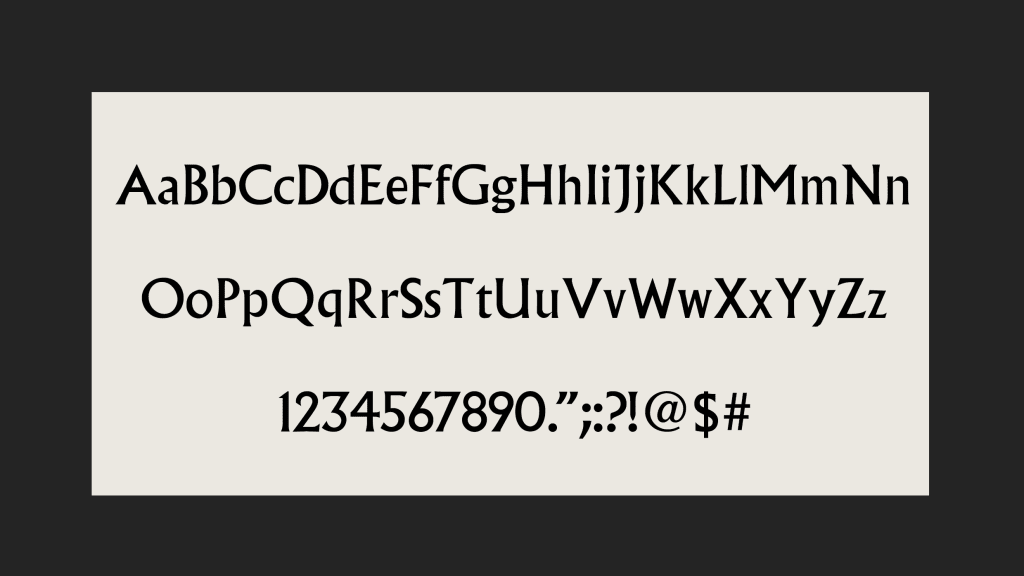
Some directors are known for their typographic flair—from the ultrawide tracking of Christopher Nolan’s film titles to Quentin Tarantino’s genre vernacular font and lettering selections.
But last week, as we reported on Sean Baker’s extensive use of Aguafina Script across his past four movies, we wondered: How many other directors have firmly embraced a single, singular typeface—and what does that typeface say about their films?
The first part is easier to answer.
“It is rare,” says title designer and Art of the Title editor-in-chief Lola Landekic. “It’s a very interesting choice. As a creator, you have to sort of commit to a specific aesthetic. And I think you also have to know yourself very well and know that there’s a throughline in all your work.”
That’s clearly the case when it comes to Baker and the directors below.
Sean Baker—Aguafina Script
Perhaps the most audacious thing about Baker’s use of Aguafina in the Best-Picture-winning Anora and his other films is the sheer amount of personality it contains. It is anything but a benign catchall face—but it is also a tonal fit that enhances the characters and themes at the heart of his most recent movies.
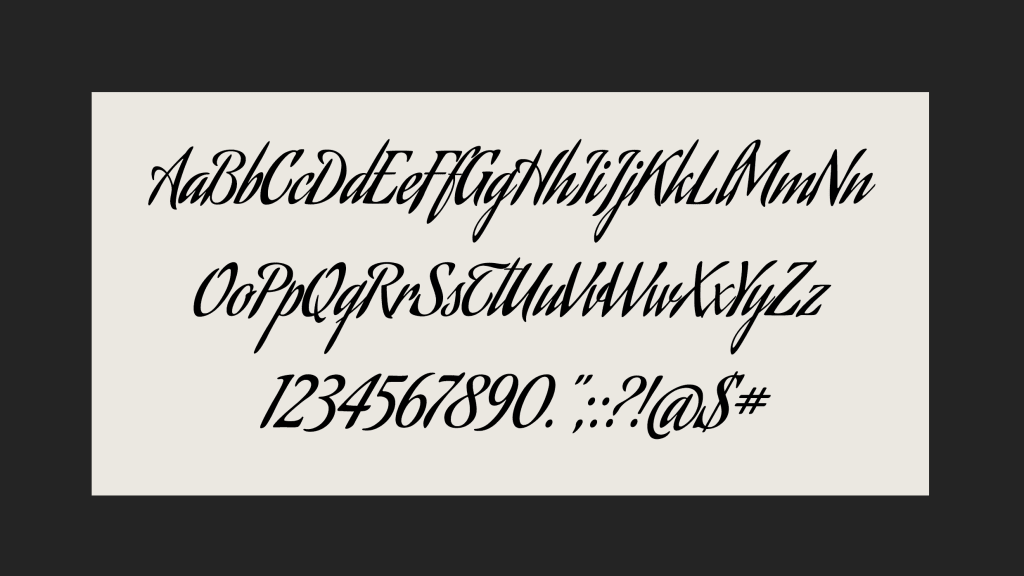
Landekic likens titles and title sequences to seasonings that can make or break a dish. While Baker’s work often deals with poverty and marginalized characters, the energetic Aguafina elevates everything all at once, providing a contrast to the common visual iconography around such subjects. It has perhaps been a key to his films since Tangerine—and one that has carried over into marketing materials and more (a rare luxury when, for example, posters for the Men in Black films feature a bulky sans serif rather than Pablo Ferro’s far more interesting signature lettering that appears in the actual movies).
“It can be a difficult thing to achieve as a filmmaker, that kind of consistency of aesthetic,” Landekic says. “I admire anyone that can get that through the door because it’s hard these days where everything is created so piecemeal—often the distributor controls the promotional materials, and the filmmaker has very little say into how that gets to look.”
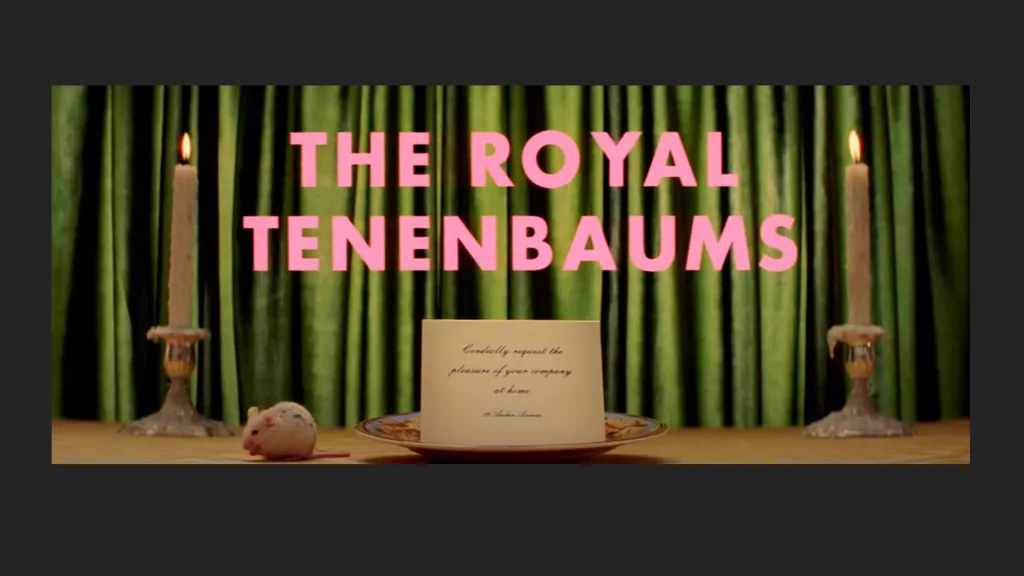
Wes Anderson—Futura
A lot has been written about Wes Anderson’s thoughtful and intentional approach to type and lettering—but the face that made him famous was Futura, which branded the first half of his filmography (so much so that many considered it an aesthetic betrayal when he sidelined it for Jessica Hische’s title lettering in Moonrise Kingdom.) In Anderson’s masterpiece The Royal Tenenbaums, Futura was essentially a character in its own right, appearing not just in titles, but on buses, books and myriad places beyond.
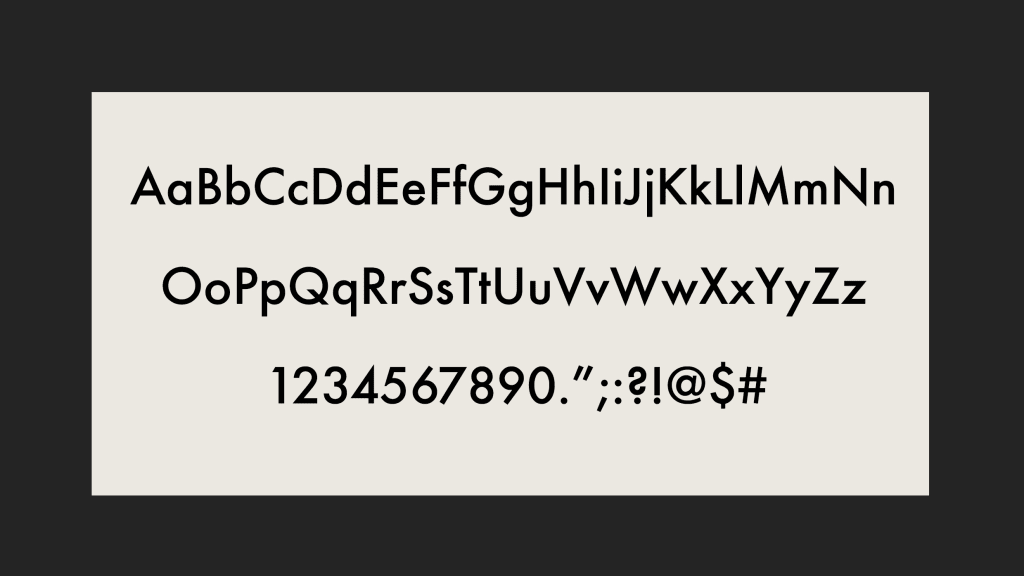
“It harkens back to the French New Wave and sort of how Godard used titles,” Landekic says. “The thing about Futura is that it’s very unadorned. It feels almost like you could overlook it. But the way that Wes Anderson uses it gives it a very clean stamp. . . . What it really does is it makes everything feel very arranged and curated. And for a filmmaker like Wes Anderson, that is a lot of the point.”
One further Futura aside: It’s a common misnomer that Stanley Kubrick used it widely in his filmography. In reality, he only truly deployed it in Eyes Wide Shut, and it cropped up in promotional materials for other projects—though he did reportedly call it his favorite typeface.
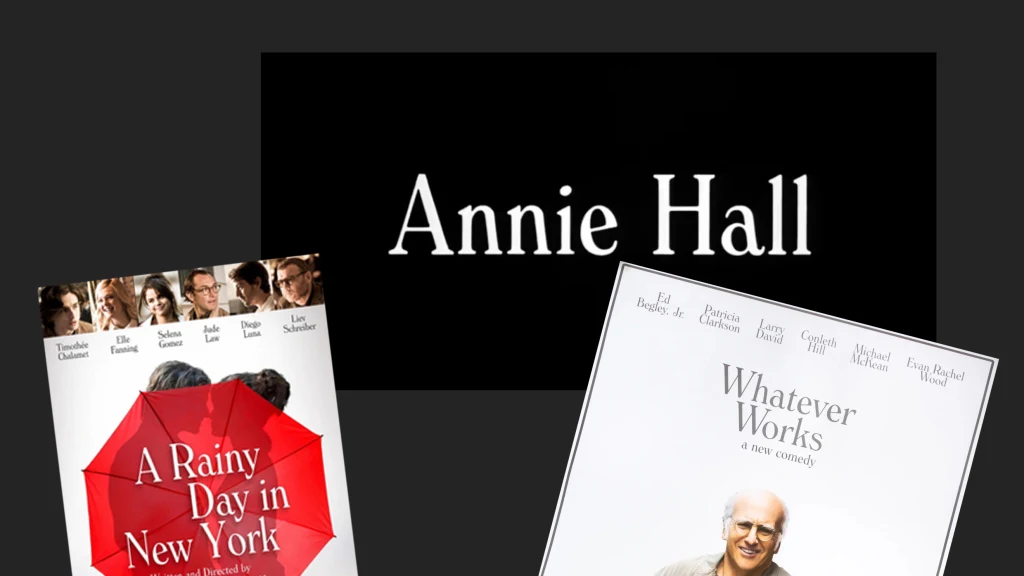
Woody Allen—Windsor
Perhaps no typographic directorial bond runs as deep as Woody Allen and Windsor, which has kicked off every single one of Allen’s films since Annie Hall in 1977. As Jarrett Fuller, host of the podcast Scratching the Surface, has detailed, “Legend has it that . . . Allen would often eat breakfast at the same New Jersey diner as noted graphic and type designer Ed Benguiat. Allen, knowing Benguiat as a “printer,” asked him one morning—probably sometime between 1975 and ’77—for a good typeface to use in the credits of his upcoming film. Benguiat offered up Windsor.”
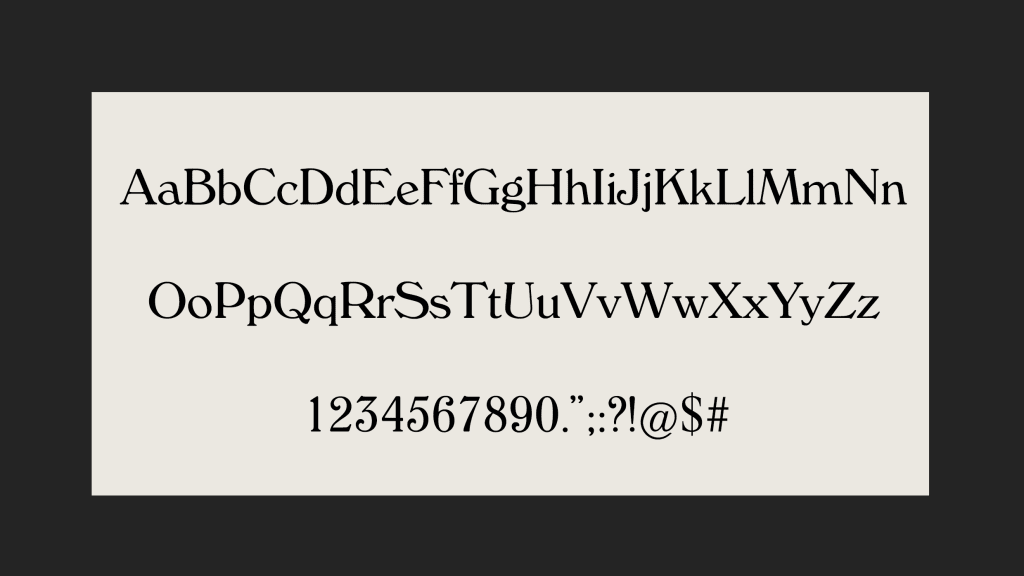
It would go on to become synonymous with the director and all things related to him. And regardless of whether a given film of his was a hit or a flop, quality or not, Windsor was there—and, well, it just works.
“It’s long, it’s kind of lanky. It has serifs. That ‘f’ that you see in the Windsor font . . . looks like Charlie Chaplin standing with his two feet poking out,” Landekic says. “And so it has that kind of feeling to me where it has a sense of humor about it in the way that [Allen is] using it because a lot of his comedies and his dramatic work deal with a sort of a humdrum misunderstanding elevated to a sense of dramatic chaos in some sense—and Windsor kind of flies in the face of that, where it wants to be regal, but it’s very rounded. So it has two personalities embodied within it.”
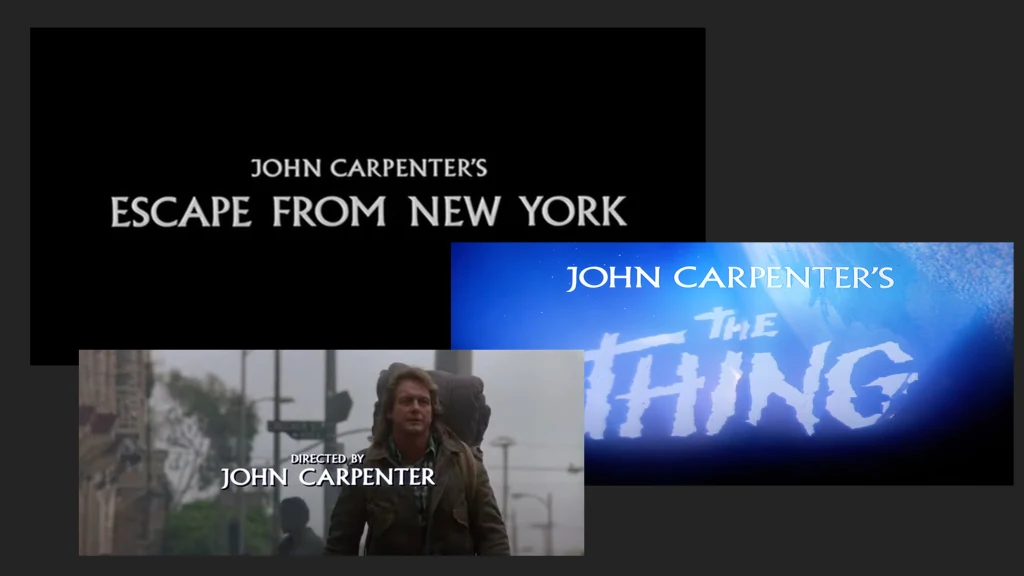
“At the end of the day, I would like the film to feel cohesive,” says Landekic. “And however that happens, however that needs to look, is the ideal. Ultimately, a title sequence and a title font is in service to a larger picture.”